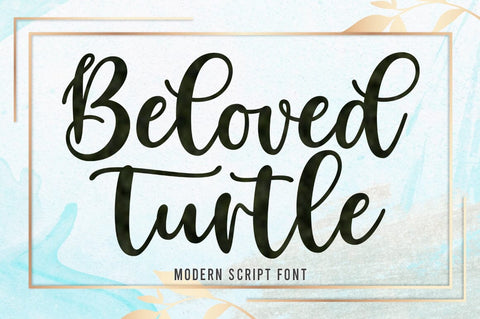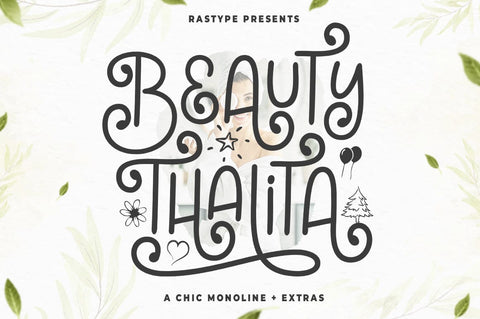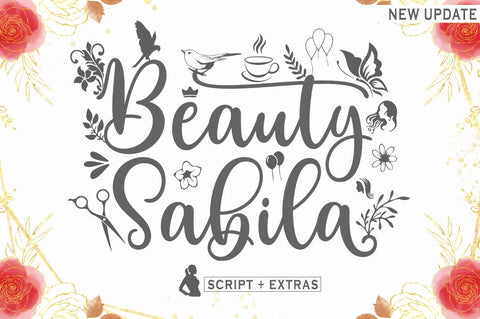
BEST SELLER FONT BUNDLE
BEST SELLER FONT BUNDLE amazingly designed typography is here to update your font library!
In this bundle, you will find a combination of classic and modern styles to create the perfect lettering.
This professional resource is also powerful because each font has its own magic design. You can use it for almost anything like blog headers, posters, wedding elements, t-shirts, clothing, book covers, business cards, greeting cards, branding, invitations and quotes and so on.